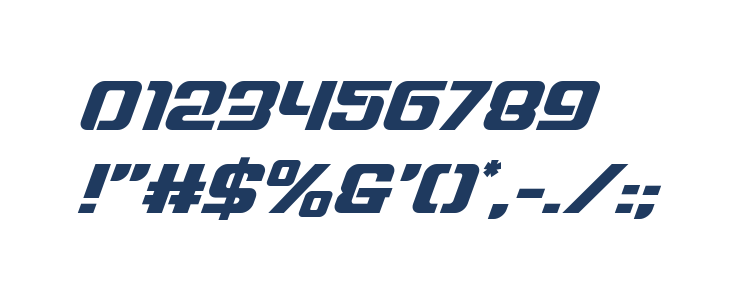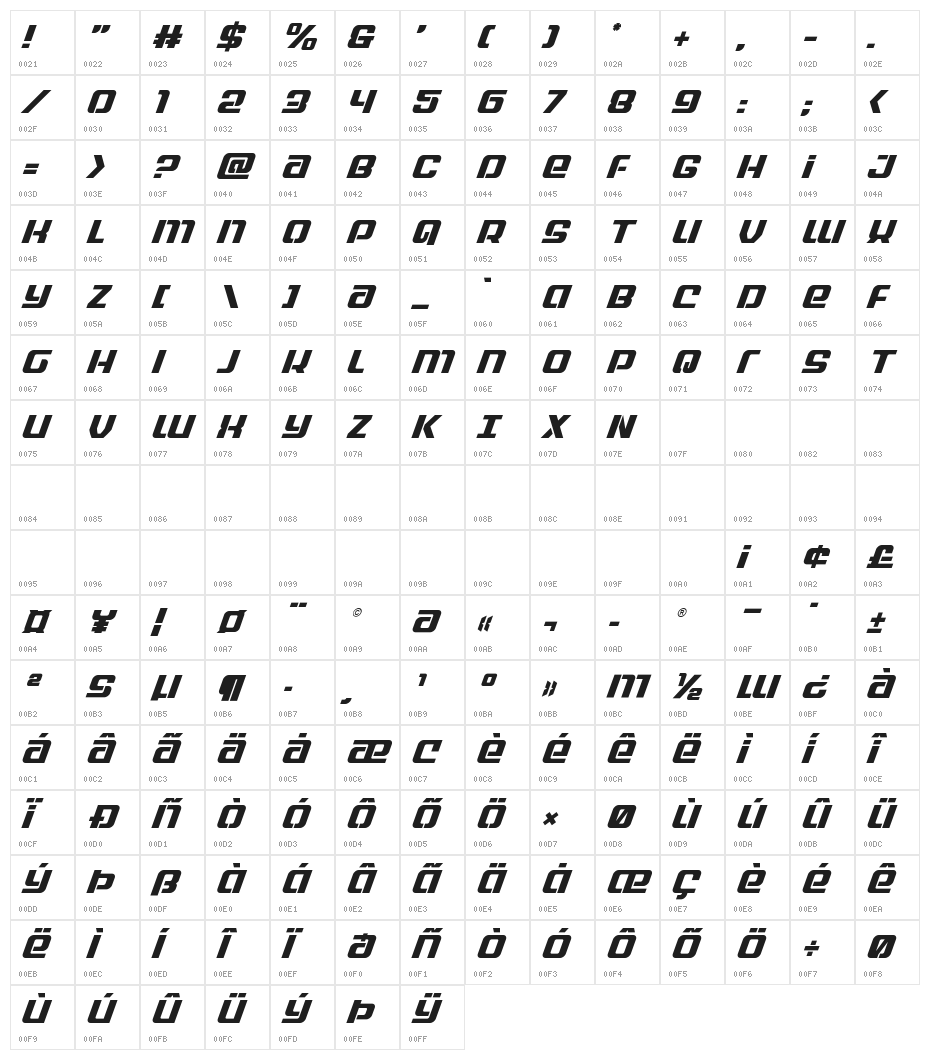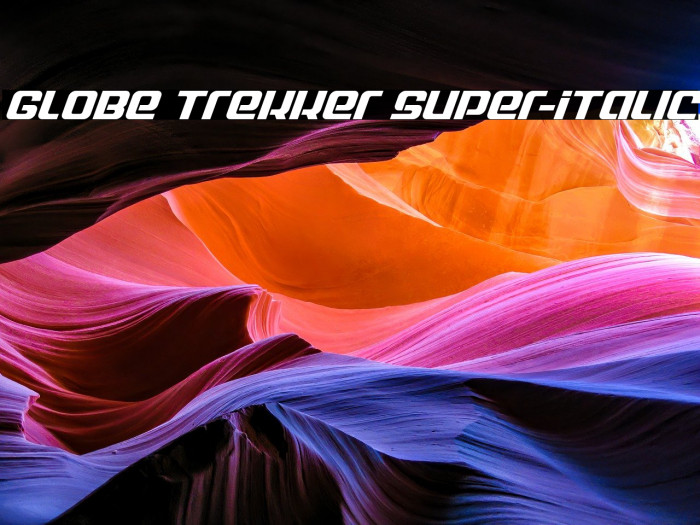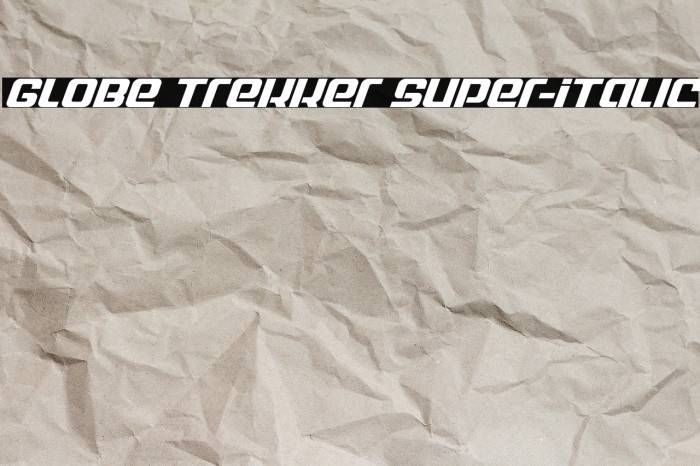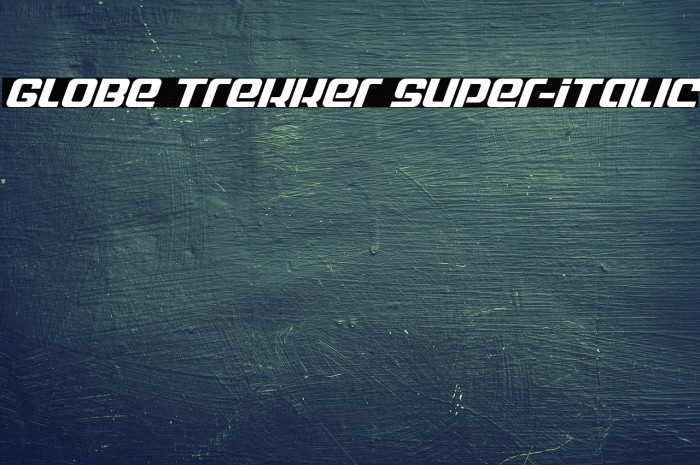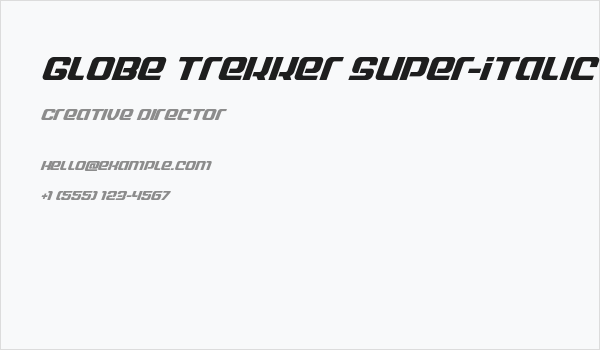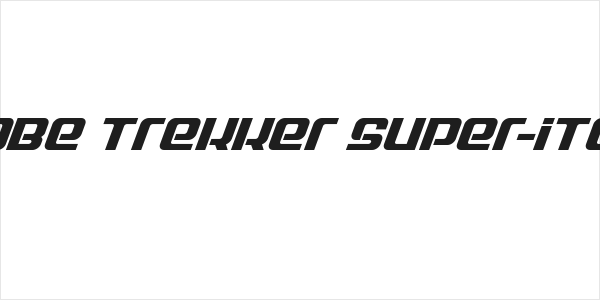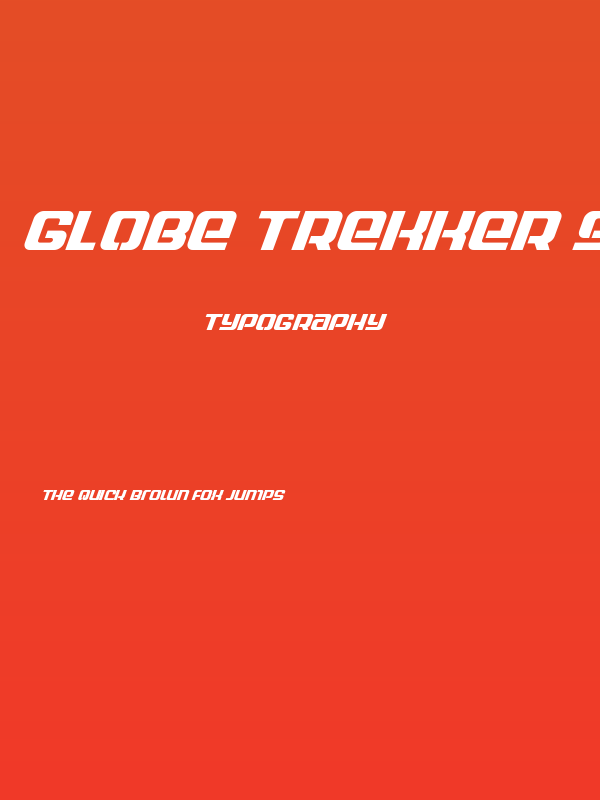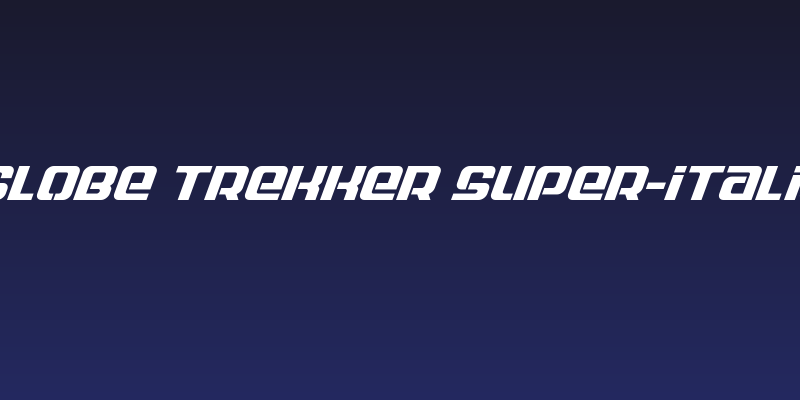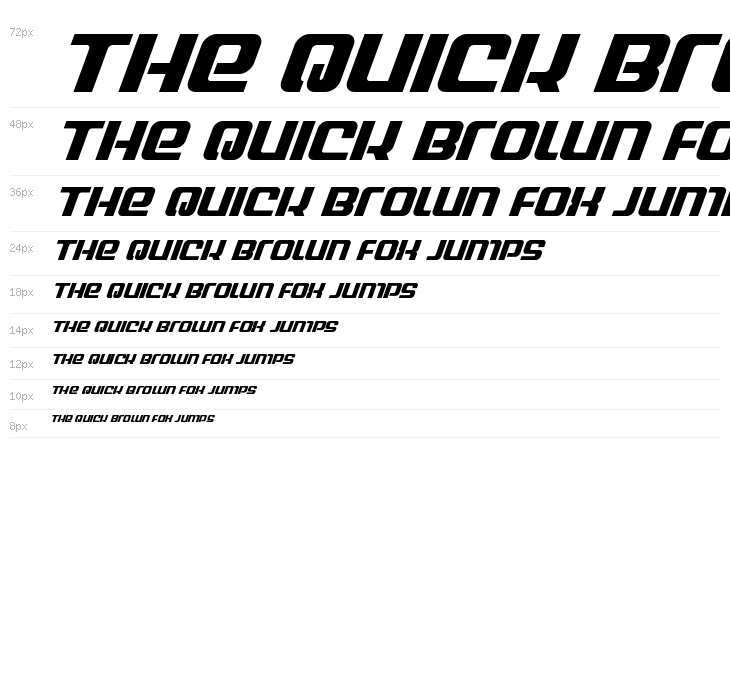
Globe Trekker Super-Italic Font
Globe Trekker Super-Italic Description
This dynamic and bold typeface features a strong italic slant, giving it a sense of motion and energy. The characters are wide and robust, with a consistent stroke thickness that emphasizes its bold nature. The design is modern and sleek, with a futuristic touch that makes it stand out. The uppercase and lowercase letters maintain a uniform style, while the numerals and special characters are crafted to match the overall aesthetic. The font's geometric shapes and sharp angles contribute to its distinctive appearance, making it suitable for projects that require a strong visual impact.
| Proposed Projects | Ideal for sports branding, automotive designs, tech-related projects, and dynamic advertising campaigns. |